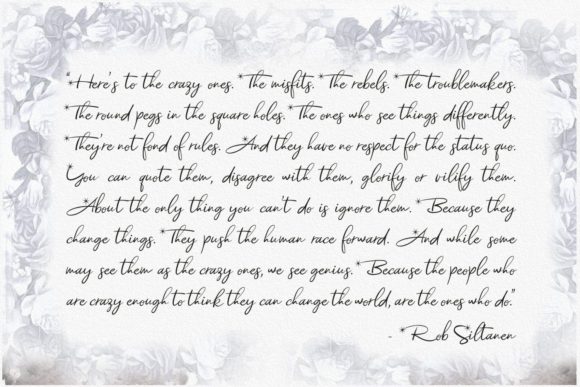
Astoria Font: Elevate Your Design with a Touch of Modern Simplicity
In the world of typography, fonts play a pivotal role in transforming a design project from ordinary to extraordinary. Among the myriad of fonts available, the Astoria Font stands out for its modern simplicity and charming appeal. This handwritten font is not just a typeface; it’s an experience that brings a unique blend of elegance and approachability to any design.
The Charm of Astoria Font
Astoria is described as a modern and simple handwritten font, which might sound straightforward, but its impact is profound. The beauty of Astoria lies in its ability to add a personal touch to digital and print designs without overpowering them. Its charm is multifaceted:
- Versatility: Astoria is incredibly versatile, making it suitable for a wide range of projects, from branding and advertising to packaging and personal crafts.
- Elegance: Despite its simplicity, Astoria exudes a certain level of sophistication that can elevate the status of any project.
- Approachability: The handwritten nature of Astoria makes it feel friendly and approachable, perfect for brands or projects that want to connect with their audience on a more personal level.
Transforming Design Projects with Astoria
The real power of Astoria Font lies in its ability to transform. Whether you’re working on a logo, a website, a marketing campaign, or a craft project, Astoria can turn your design into a standout piece. Here’s how:
- Branding: Use Astoria to create a memorable brand identity that stands out in a crowded market. Its unique charm can help in building a strong emotional connection with your audience.
- Digital Content: For bloggers, influencers, and digital marketers, Astoria can add a personal touch to website headers, social media graphics, and blog posts, making your content more engaging.
- Print Design: From business cards to posters and flyers, Astoria can add a touch of elegance and personality to your print materials.
- Crafts: For crafters, Astoria can be a wonderful addition to handmade cards, journals, and DIY projects, adding a professional yet personal touch.
Why Choose Astoria Font?
With so many fonts available, why choose Astoria? Here are a few compelling reasons:
- Unique Appeal: Astoria offers a unique blend of modern simplicity and charm that is hard to find in other fonts.
- Easy to Read: Despite its artistic nature, Astoria is clear and easy to read, making it functional as well as beautiful.
- Highly Versatile: It can be used in a variety of contexts, from digital to print, and in various sizes without losing its appeal.
How to Use Astoria Font Effectively
To make the most of Astoria Font, consider the following tips:
- Pair it Wisely: Astoria pairs well with both serif and sans serif fonts. Experiment with different combinations to find the perfect match for your project.
- Play with Sizes: Don’t be afraid to vary the font size to create visual interest and hierarchy in your design.
- Emphasize Key Points: Use Astoria to highlight key messages or calls to action, making them stand out.
Astoria Font is more than just a typeface; it’s a design element that can transform your projects with its modern simplicity and charm. Whether you’re a designer looking to elevate your branding, a digital content creator aiming to engage your audience more effectively, or a crafter adding a professional touch to your handmade projects, Astoria is an excellent choice. Its versatility, elegance, and approachability make it a valuable addition to any design toolkit. So, why settle for ordinary when you can make your designs stand out with Astoria Font?